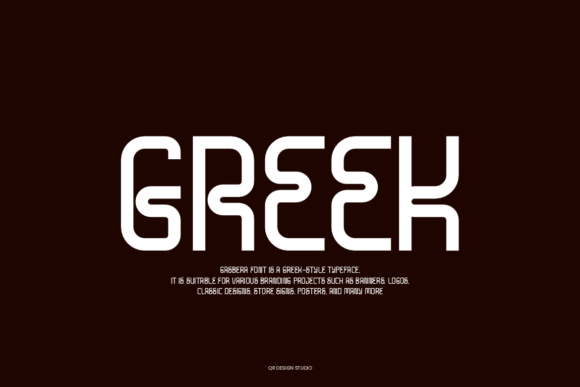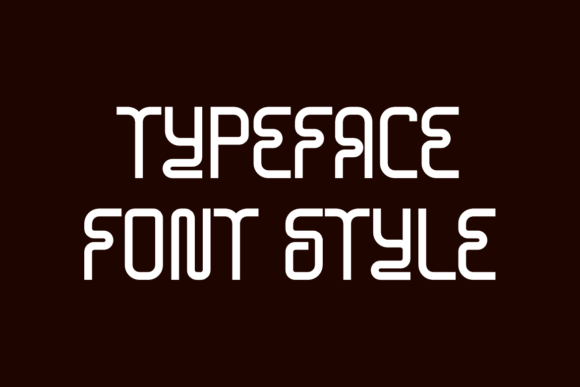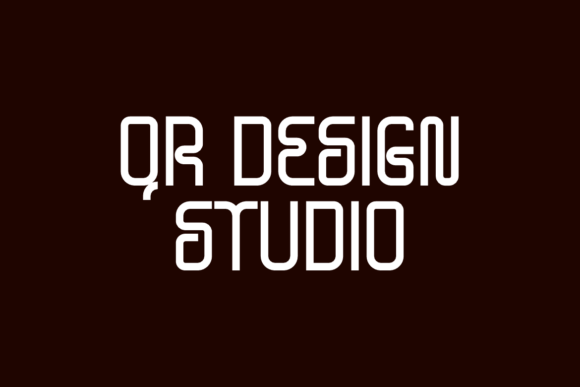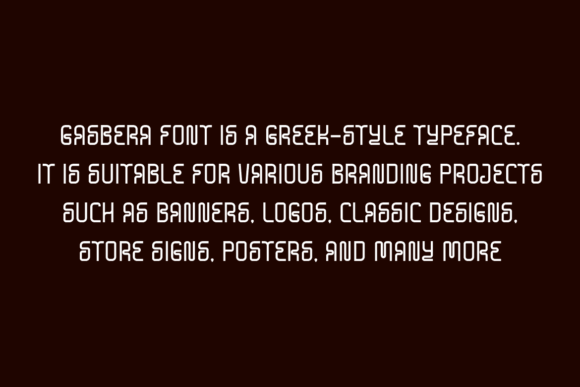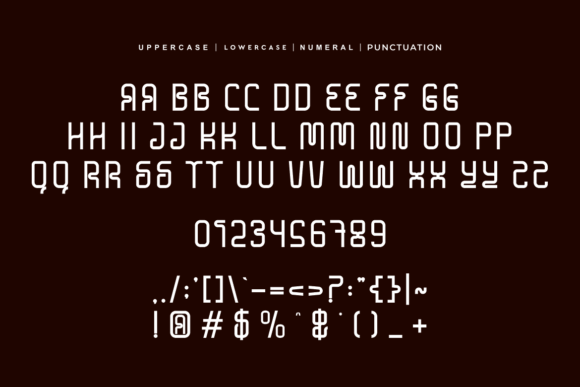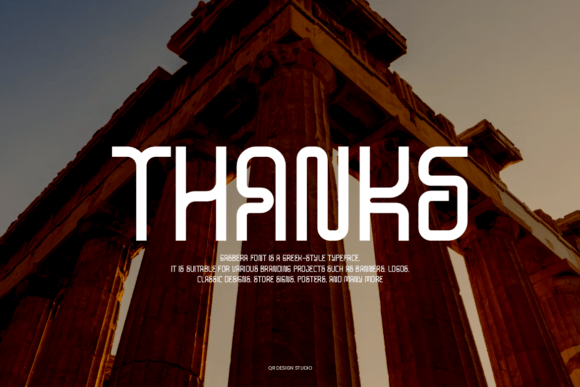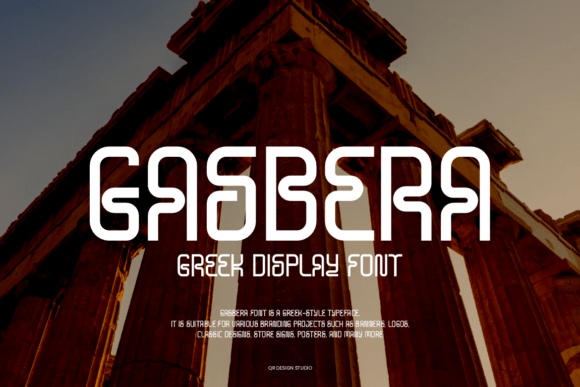
I still remember the frustration of working on a project, pouring my heart and soul into the design, only to get stuck on one thing: the font. It was for a mythology-themed campaign, and I needed something that would evoke strength, wisdom, and history. I scoured the internet, tried out countless fonts, but nothing seemed quite right. That was until I stumbled upon Gasbera, a stylish Greek-inspired display font that would change the game.
First Impressions: What I Love About Gasbera
Gasbera is more than just a font; it’s a statement piece. Here are a few things that immediately drew me in:
- ✨ Unique character forms: Gasbera’s characters are inspired by ancient Greek inscriptions, giving it a distinct personality that’s hard to find elsewhere.
- ✅ Clean and modern aesthetics: Despite its classical heritage, Gasbera has a clean, futuristic look that makes it perfect for both commercial and creative applications.
- 💡 Versatility: Whether you’re working on a branding project, a poster, or an educational material, Gasbera is a versatile font that can adapt to any style.
The Honest Review: A Few Quirks to Consider
While Gasbera is an amazing font, it’s not without its quirks. Here are a few things to keep in mind:
- 🤔 Limited use cases for body text: Gasbera is a display font, which means it’s best used for headlines and titles. It might not be the best choice for body text or longer paragraphs.
- ⚠️ Some glyphs may require manual adjustment: Depending on the platform you’re using, you might need to manually adjust some glyphs to get the best results.
A Practical Guide to Using Gasbera
Gasbera was inspired by the ancient Greek inscriptions that dot the Mediterranean landscape. Its designer, a typography enthusiast with a passion for history, wanted to create a font that would evoke the strength, wisdom, and culture of ancient Greece. With Gasbera, they aimed to bring a piece of history to life, while also making it accessible to modern designers and creatives.
| Font Name | Gasbera Font |
| Author | qrdesignstd |
| What is Gasbera? | Gasbera is a stylish Greek-inspired display font that blends classical heritage with modern geometry. |
| What can I use Gasbera for? | Gasbera is perfect for branding, logos, posters, and educational materials that want to evoke strength, wisdom, and history. |
| Is Gasbera suitable for body text? | No, Gasbera is a display font and is best used for headlines and titles. |